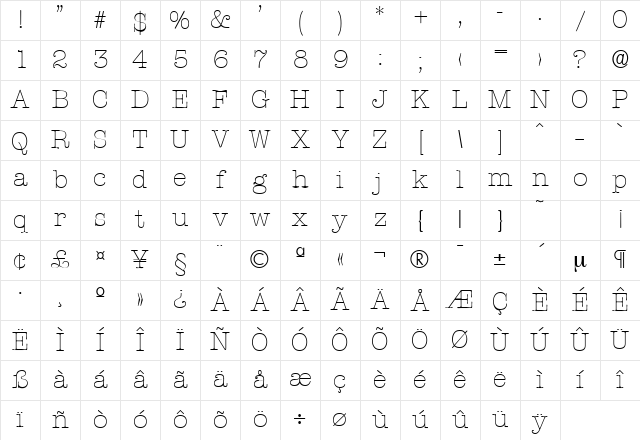
Design Context for Typewriter-Serial-ExtraLight
Typewriter-Serial-ExtraLight uses fixed-width spacing throughout, giving it the structured, systematic character associated with coding environments and technical documentation. Its slender proportions lend an understated elegance to any composition.
Pro Tip: Use Typewriter-Serial-ExtraLight with slightly increased line-height for extended reading - fixed-width spacing can feel dense in longer passages without extra breathing room.